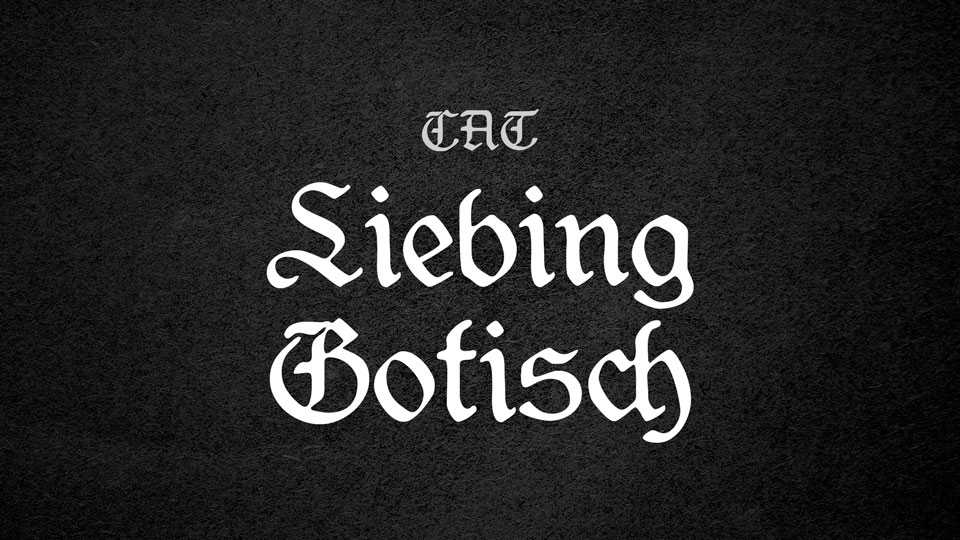
Download Liebing Gothisch font, a calligraphic blackletter typeface from the 30s by Kurt Liebing. Liebing Gothisch is a great choice for old style designs, formal templates and more.